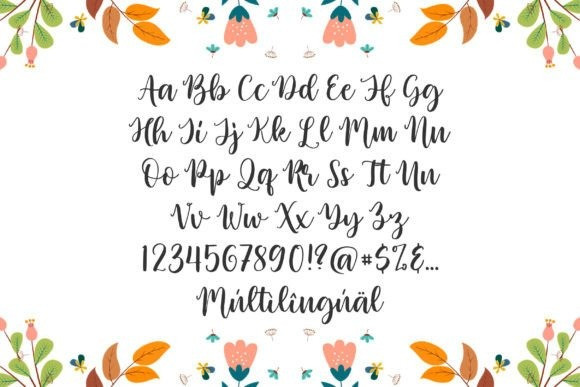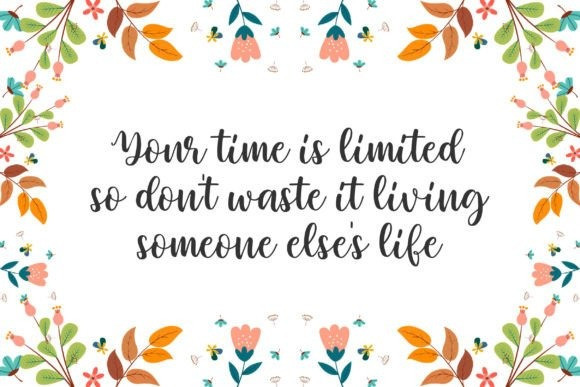
Beswash Font
Beswash Script Font is a script font, designed for those seeking elegance and sophistication. Its exquisite letterforms are crafted with precision, featuring delicate curves and swashes that add a touch of glamour to any project. This font is perfect for invitations, branding materials, and other high-end designs that require a touch of refinement.